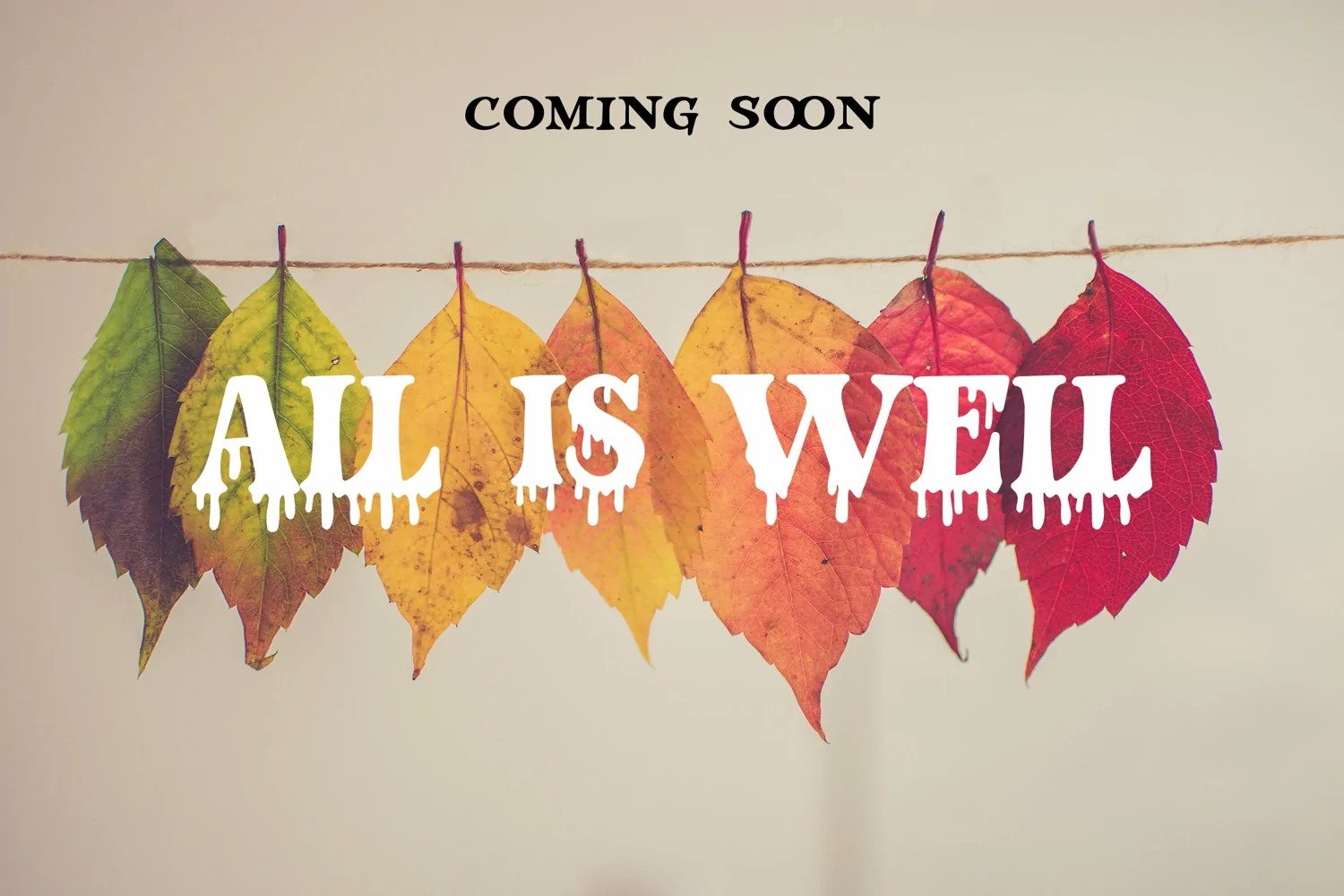
Blood Words - Dripping Font that contain lowercase, uppercase, symbol, and also support multi language. There’s a lot ligatures in this font. This Font also comes with ligatures, alternates and many more. this font suitable for fashion, branding, catalog and other design what you want.
Blood Words